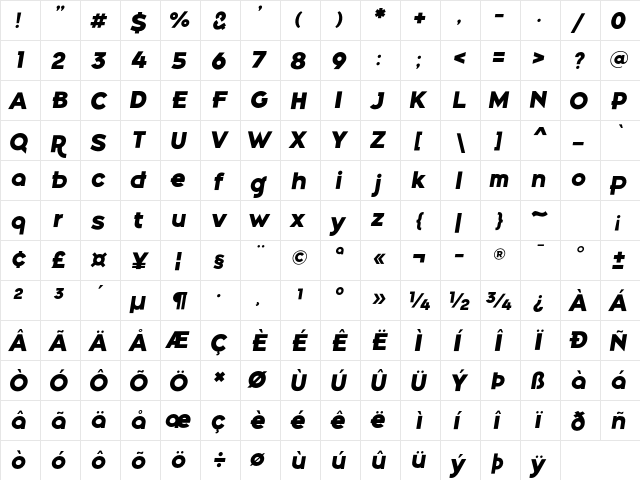
Belong Sans ExtraBoldItalic
Design Context for Belong Sans Typeface
Belong Sans is a composed and adaptable typeface that performs quietly and consistently across a wide range of design contexts. The dynamic lean of this cut emphasises speed and emphasis in any layout. Its bold stroke weight gives it real presence on the page.
Pro Tip: Use Belong Sans for emphasis, pull quotes, and subheadings where its slanted energy can add rhythm to the layout.